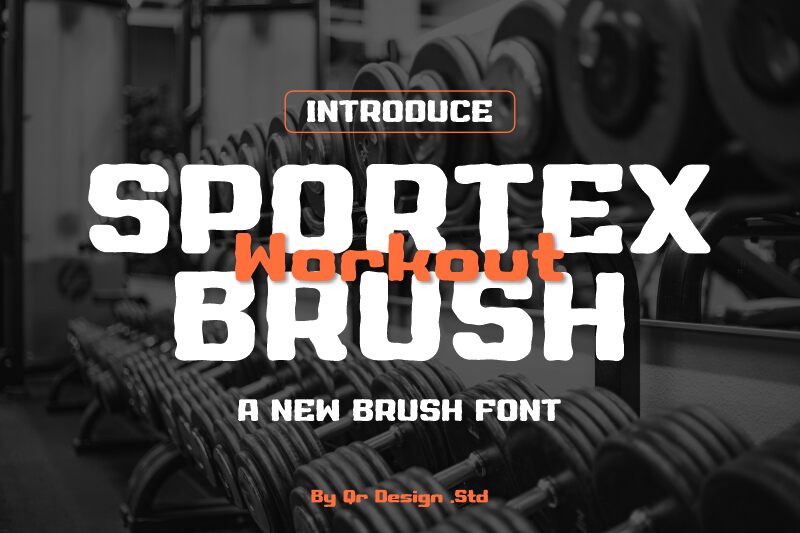
Sportex WorkoutBrush
Sportex Workout Brush font by Qr Design is a rugged and engaging display free eroded font. Its expanded look features bold lines, ensuring that whatever you have to say gets the appropriate attention. The wide characters are modern and dissected by clean cuts resembling brush strokes that display a textured aesthetic every user can appreciate.
The contemporary appeal of this font manifests itself in food branding packages and sports posters as much as it finds its way into industrial magazines and editors. This font is perfect for logos, advertising materials, motivational print ideas, tote bags, billboards, t-shirts and more!